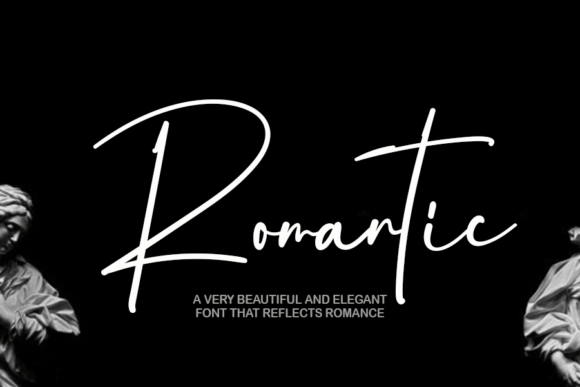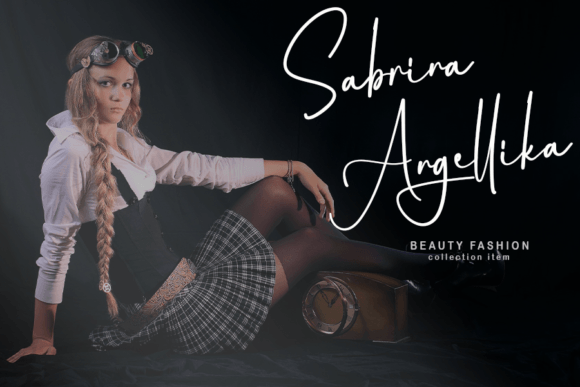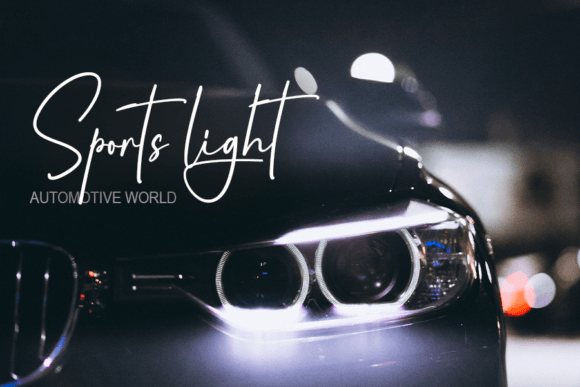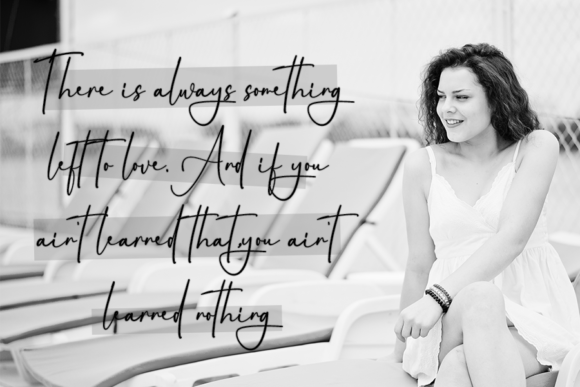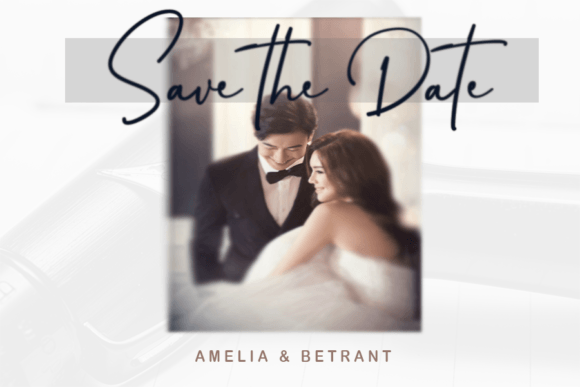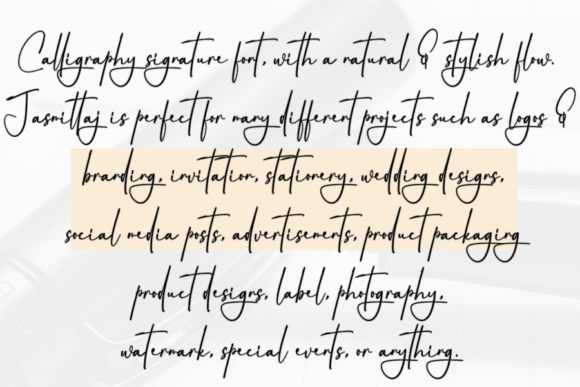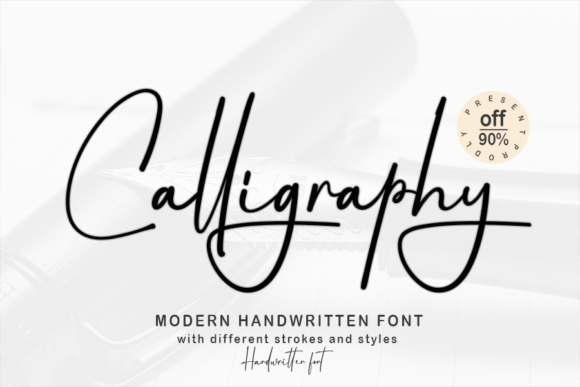
Elevate Your Design with the Elegance of Calligraphy Fonts
Calligraphy is a timeless art form that has been a cornerstone of beautiful handwriting and elegant typography for centuries. In the world of design, a well-crafted calligraphy font can elevate any project from ordinary to extraordinary. Introducing Calligraphy, a stylish and elegant signature script font that is perfect for a wide range of applications, from product packaging and branding projects to magazines, social media, weddings, and more.
The Beauty of Calligraphy Fonts
Calligraphy fonts are inspired by the art of handwriting and lettering, where every stroke and curve is carefully crafted to create a unique and beautiful piece of art. A good calligraphy font can add a touch of sophistication and elegance to any design, making it perfect for designers and crafters looking to create something truly special.
Calligraphy fonts are incredibly versatile and can be used in a variety of contexts. Whether you’re looking to create a stunning wedding invitation, a beautiful magazine layout, or a professional branding project, a calligraphy font is sure to impress. The flowing lines and intricate details of calligraphy fonts make them perfect for adding a touch of whimsy and romance to any design.
Features of Calligraphy Font
Calligraphy font is a signature script font that boasts a range of features that make it perfect for designers and crafters. Some of the key features of this font include:
• Elegant and Stylish: Calligraphy font is a beautifully crafted font that exudes elegance and sophistication.
• Perfect for Branding: The font’s unique and stylish design makes it perfect for branding projects, where you want to create a lasting impression.
• Versatile: Calligraphy font can be used in a variety of contexts, from product packaging to magazines and social media.
• Easy to Read: Despite its elegant design, Calligraphy font is easy to read, making it perfect for body text and headlines.
Uses of Calligraphy Font
Calligraphy font is incredibly versatile and can be used in a wide range of applications. Some of the most popular uses of this font include:
• Product Packaging: Add a touch of elegance to your product packaging with Calligraphy font.
• Branding Projects: Create a lasting impression with Calligraphy font, perfect for logos, business cards, and more.
• Magazines and Editorials: Use Calligraphy font to add a touch of sophistication to your magazine layouts and editorials.
• Social Media: Stand out on social media with Calligraphy font, perfect for creating eye-catching graphics and posts.
• Weddings: Create beautiful wedding invitations, programs, and more with Calligraphy font.
Tips for Using Calligraphy Font
To get the most out of Calligraphy font, here are a few tips to keep in mind:
• Use it Sparingly: While Calligraphy font is beautiful, it can be overwhelming if used too much. Use it sparingly to add a touch of elegance to your design.
• Pair it with a Simple Font: Pair Calligraphy font with a simple font to create a beautiful contrast and make your design stand out.
• Experiment with Colors: Calligraphy font looks beautiful in a range of colors, from metallic ink to watercolor.
Calligraphy font is a beautifully crafted signature script font that is perfect for designers and crafters looking to add a touch of elegance to their designs. With its elegant and stylish design, versatility, and ease of use, Calligraphy font is sure to become a go-to font for a wide range of applications. Whether you’re working on a branding project, creating a magazine layout, or designing a wedding invitation, Calligraphy font is the perfect choice.